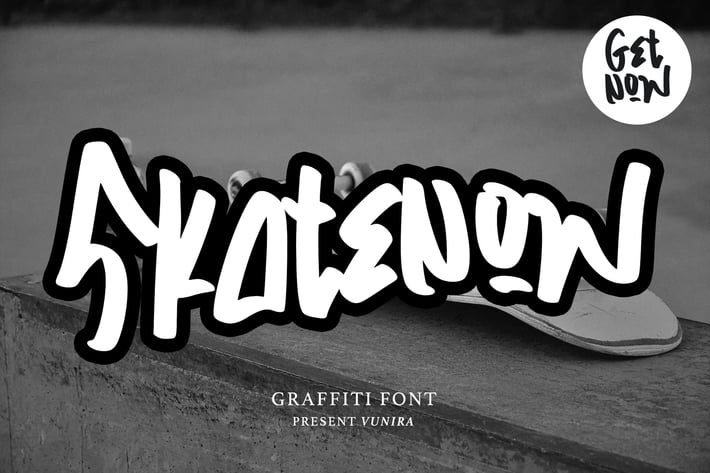
Skatenow | Graffiti Font
Skatenow | Graffiti Font with a calligraphy style, So beautiful on invitation like greeting cards, branding materials, business cards, quotes, posters, and more!